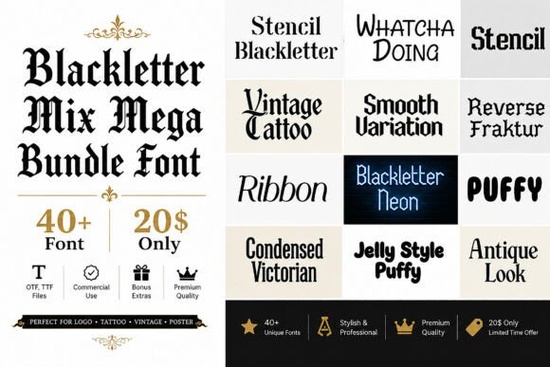
If you're looking for a reliable, well-curated set of blackletter and display fonts that actually work across real design projects logos, t-shirts, book covers, social graphics, or even tattoo flash you’ll find the Blackletter Mix Mega Bundle Font a practical, no-fuss solution. It’s not just another font bundle with filler files. This collection includes over 40 distinct typefaces, each designed with clear intent and consistent quality, making it especially useful if you’re juggling multiple client needs or building your own creative brand.
What kinds of fonts are in this bundle?
This isn’t limited to one narrow interpretation of blackletter. You’ll get styles that span historical roots and modern reinterpretations: classic Fraktur Font, bold Gothic lettering, ornate Victorian flourishes, clean stencil cuts, playful puffy outlines, and even neon-inspired variants that hold up well on dark backgrounds. There are condensed options for tight layouts, ribbon-style fonts for decorative accents, and tattoo-ready scripts with strong contrast and sharp terminals.
Because the bundle includes so many stylistic directions, it avoids the “one-trick-pony” problem common with single-font releases. For example, if you’re designing a craft brewery label, you might pair a weathered vintage blackletter with a clean sans-serif from your own library or use a ribbon-style font for the tagline and a stencil variant for the beer name. That flexibility matters when you’re iterating fast or serving clients with different brand voices.
Who is this bundle most helpful for?
Small business owners who handle their own branding like makers selling handmade goods on Etsy or local shops updating signage will appreciate having ready-to-use fonts that feel intentional, not generic. Print-on-demand sellers often need fonts that scale cleanly across mugs, hoodies, and posters; these fonts were built with consistent spacing, robust character sets (including multilingual support in many), and OpenType features like ligatures and alternates where appropriate.
How does it compare to other blackletter options?
Unlike some bundles that recycle similar weights or only offer uppercase-only fonts, this set prioritizes variety and usability. Each font has its own personality but shares baseline technical consistency: proper kerning, full punctuation, and thoughtful lowercase support (where stylistically appropriate). You won’t hit a wall trying to typeset a full sentence or add a copyright symbol.
For designers already familiar with the Sam Font a popular standalone blackletter option known for its crisp, slightly angular feel the Blackletter Mix Mega Bundle Font offers a broader palette. Sam works beautifully for minimalist logos or monogrammed apparel, while this bundle gives you alternatives for more layered or thematic projects say, a steampunk book cover needing both a Victorian headline and a distressed stencil subtitle.
Real-world uses that work well
- Merchandise & apparel: Tattoo-style fonts hold detail at small sizes; puffy and neon variants pop on dark fabric.
- Social media & thumbnails: High-contrast blackletter fonts increase readability at thumbnail size especially on YouTube or Instagram Stories.
- Packaging & labels: Condensed and ribbon fonts help fit longer names into tight spaces without shrinking text too much.
- Book covers & editorial design: Victorian and Fraktur fonts lend instant atmosphere for historical fiction, gothic romance, or fantasy genres.
One thing to keep in mind: blackletter fonts aren’t meant for body text. They shine in headlines, logos, and short impactful phrases. If you’re pairing them with supporting type, choose a neutral sans-serif or a sturdy serif with open counters avoid overly decorative companions that compete for attention.